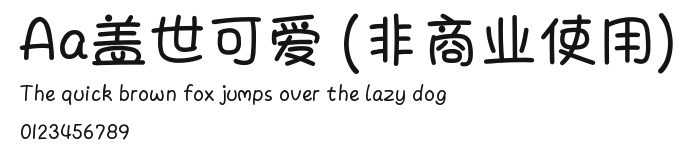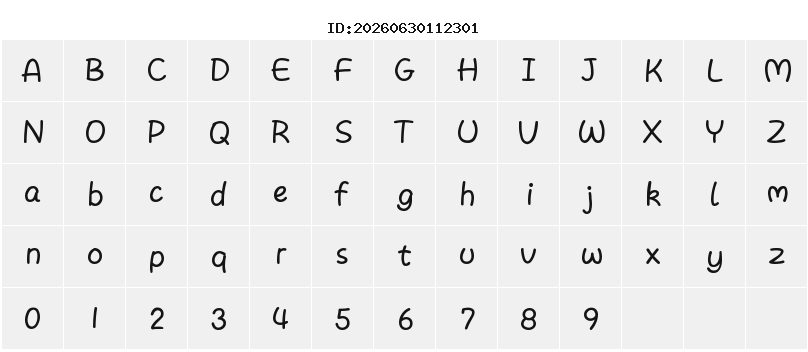
Aa盖世可爱 (非商业使用) Preview
• Font Name: Aa盖世可爱 (非商业使用)
• Designer: Aa
• Manufacturer: 翰美互通(厦门)科技有限公司
• Description: AaGaishikeai (Non-Commercial Use) is a fantastic font with excellent features designed for user interfaces and electronic communications.
About Aa盖世可爱 (非商业使用).ttf
Aa盖世可爱 (非商业使用).ttf is a modern, elegant sans-serif font designed for ultimate readability and visual harmony. Perfect for branding, headlines, web design, and print materials.